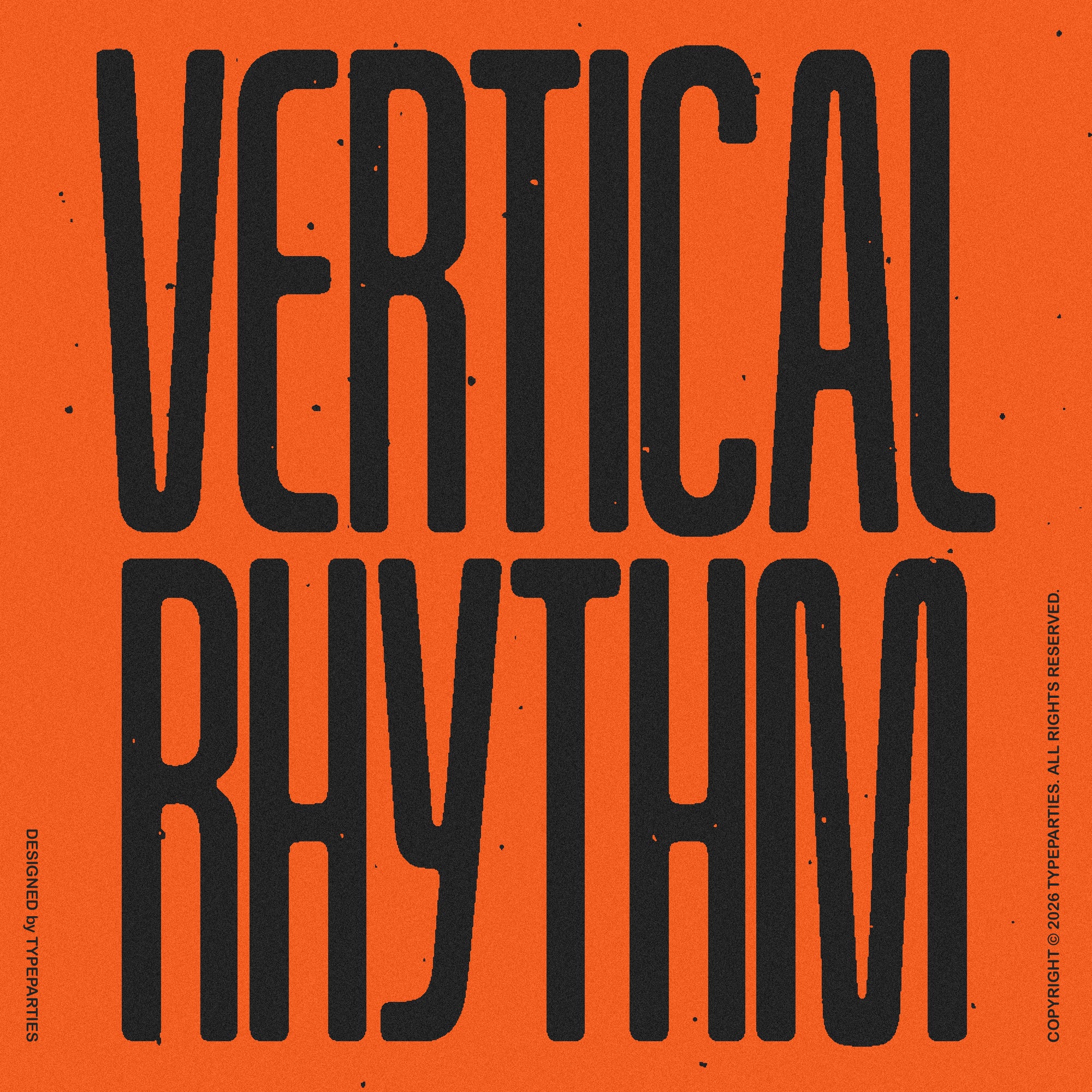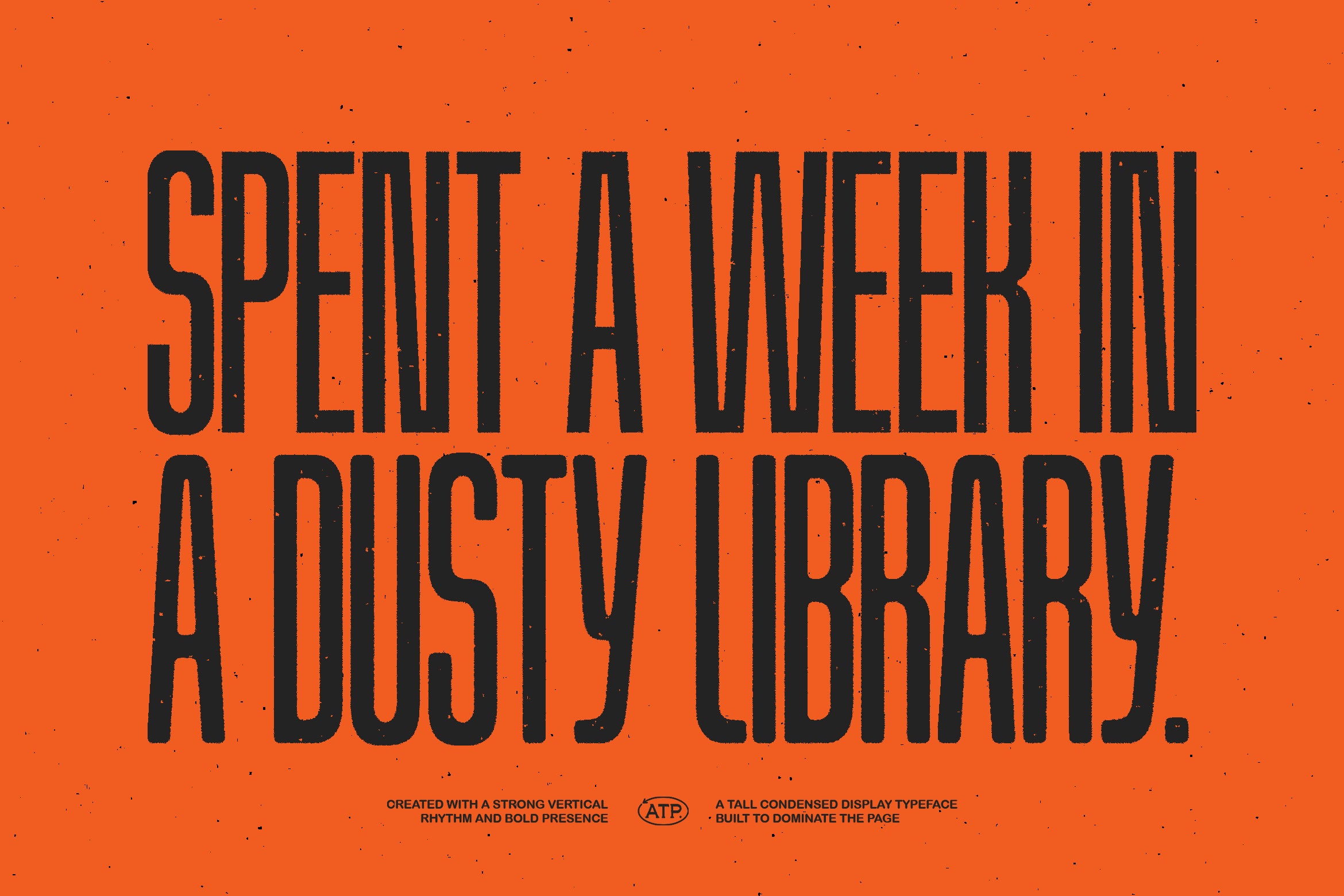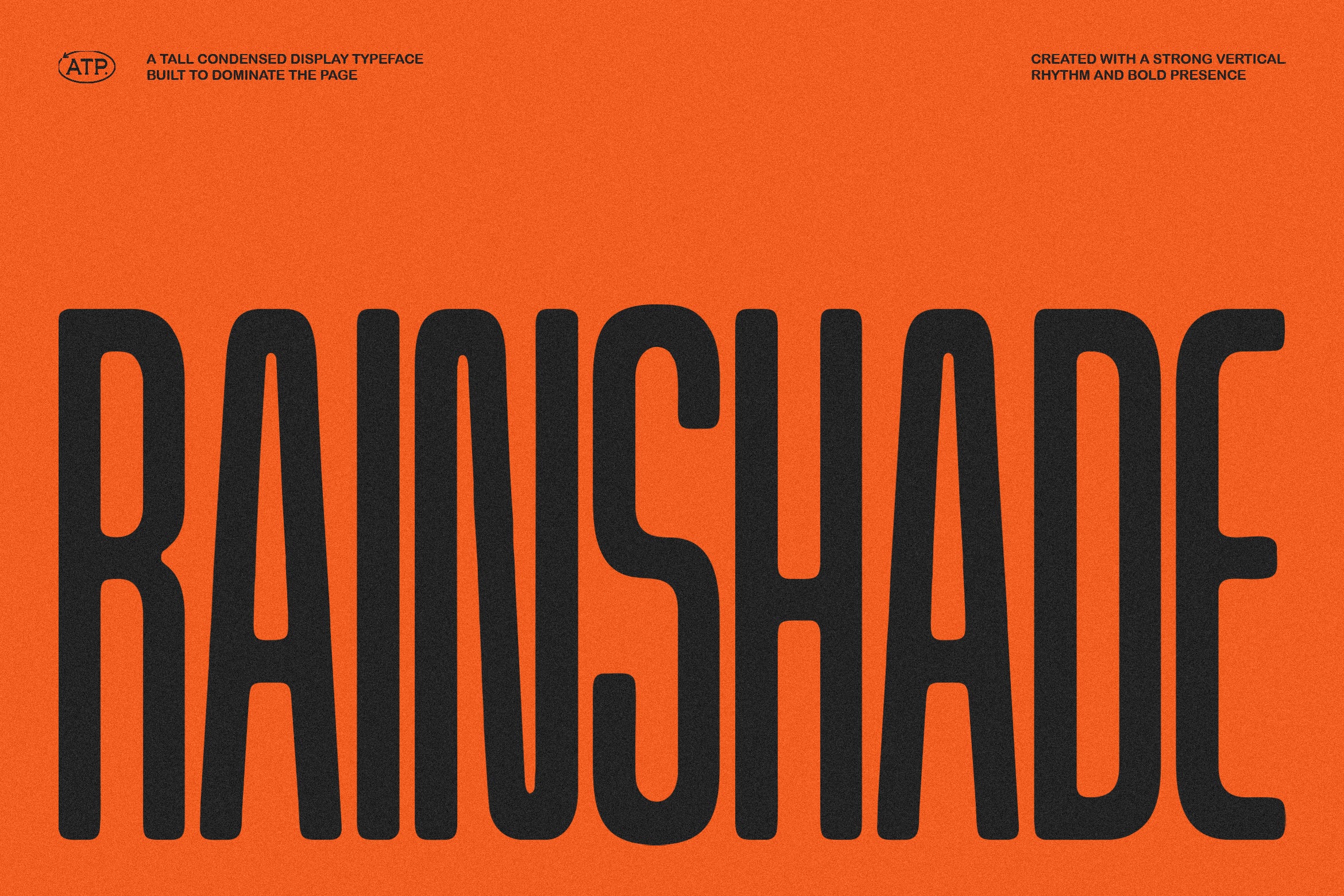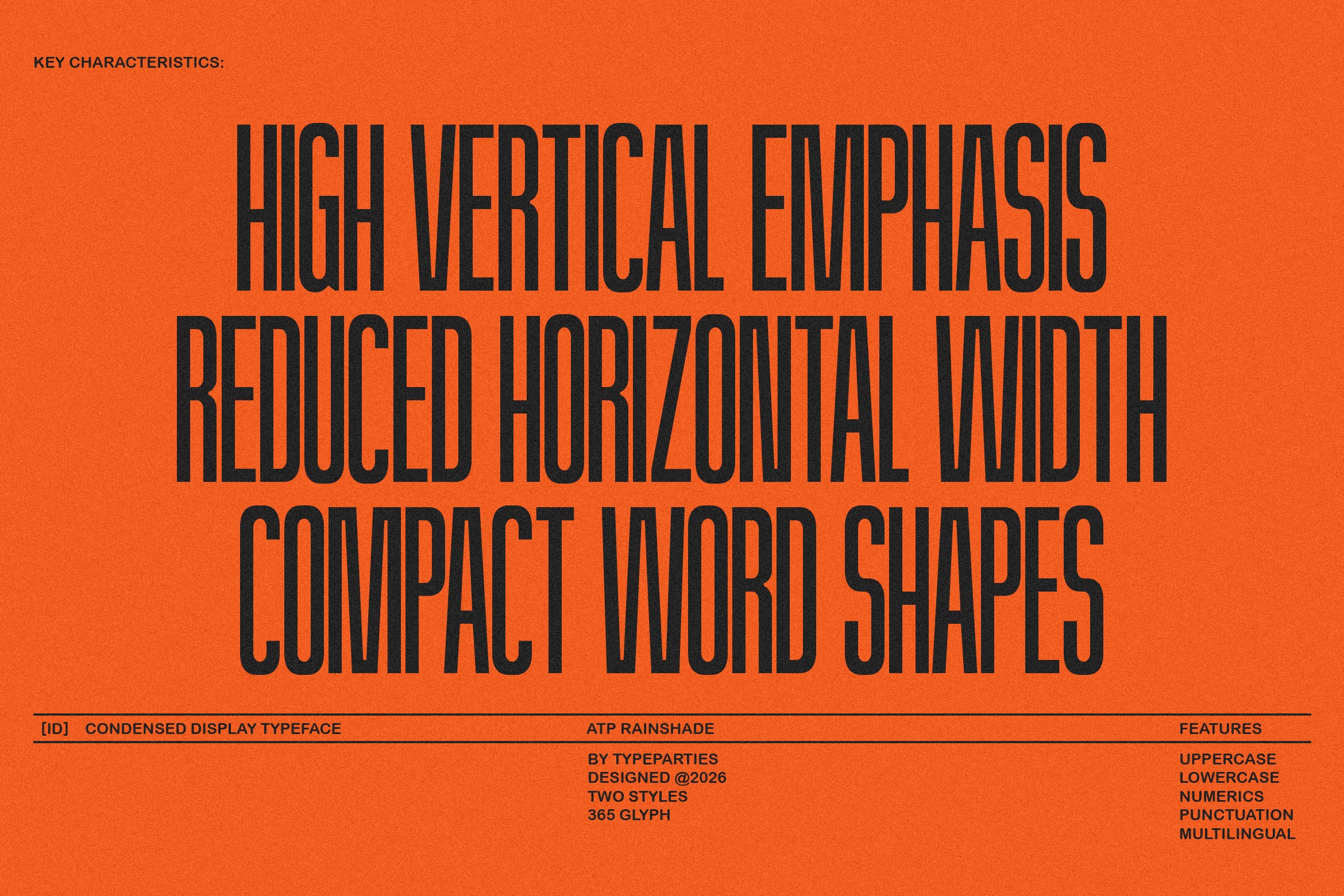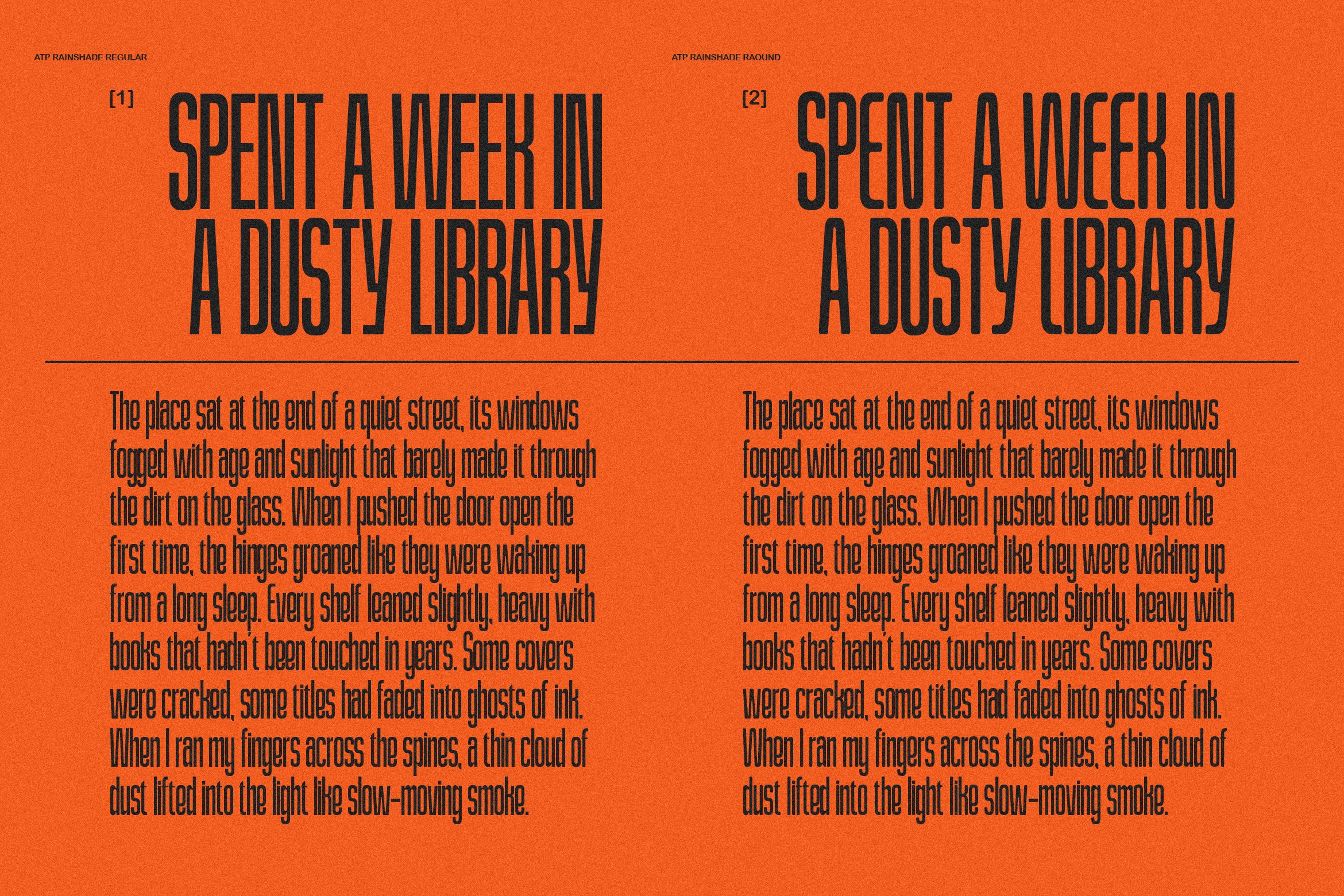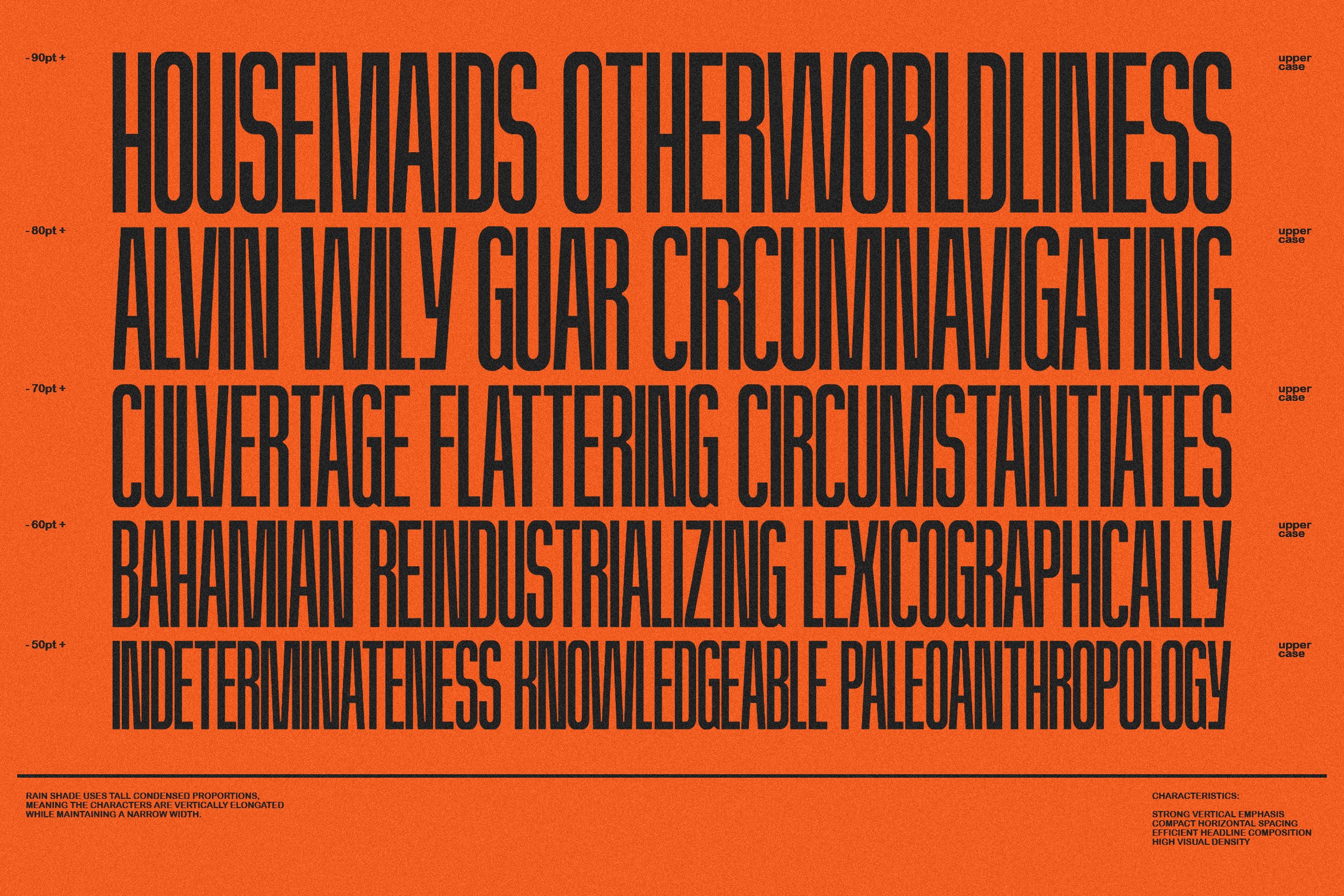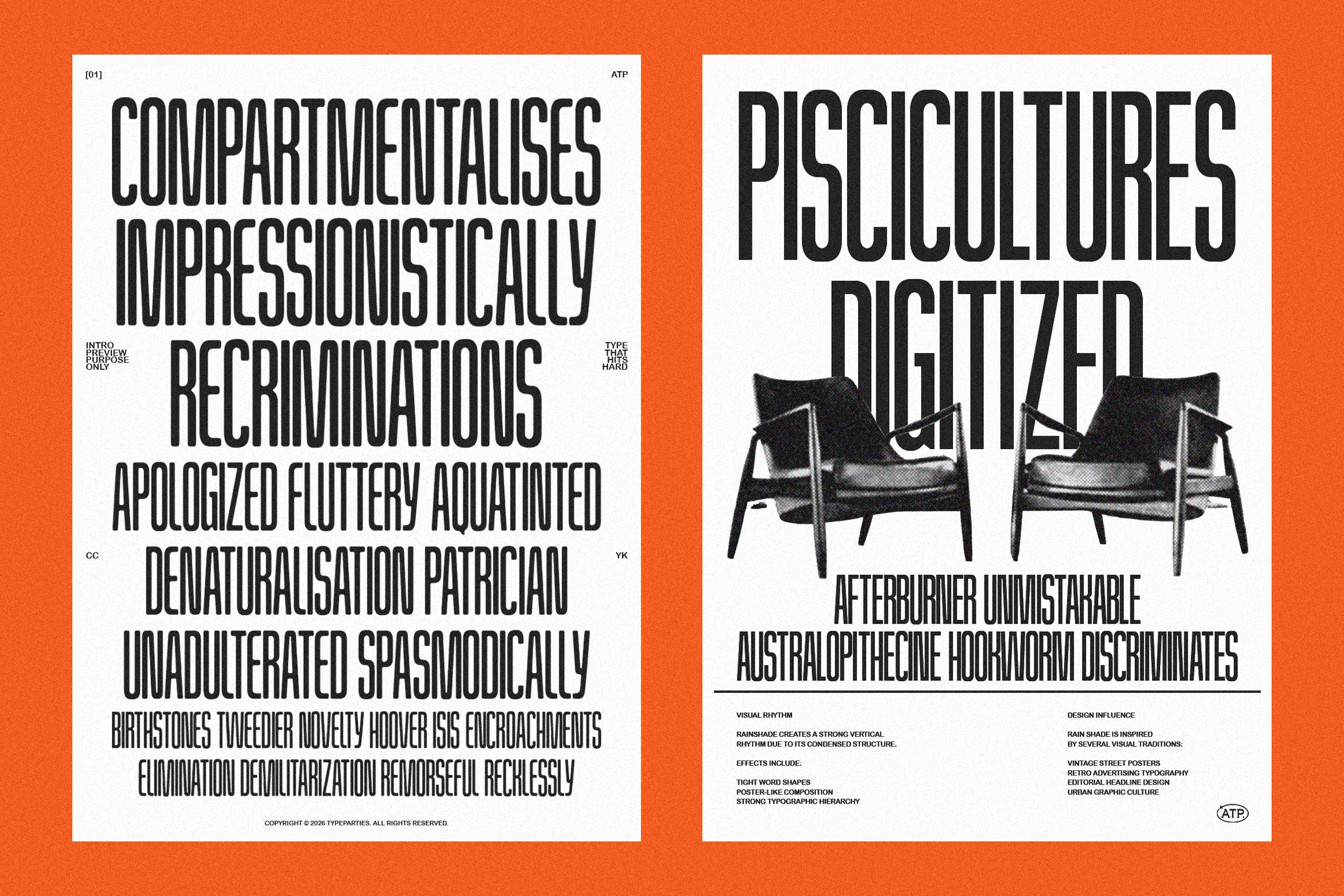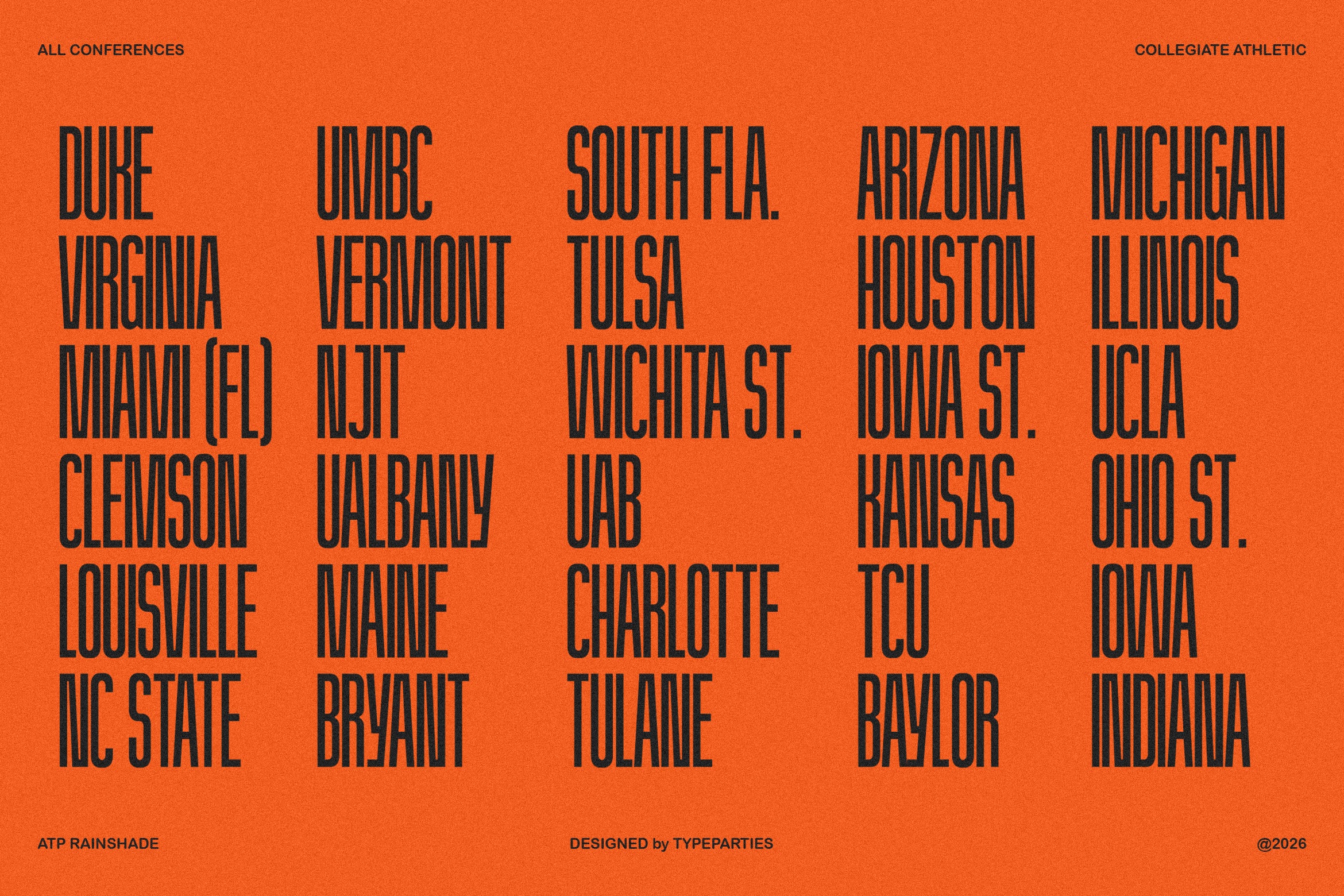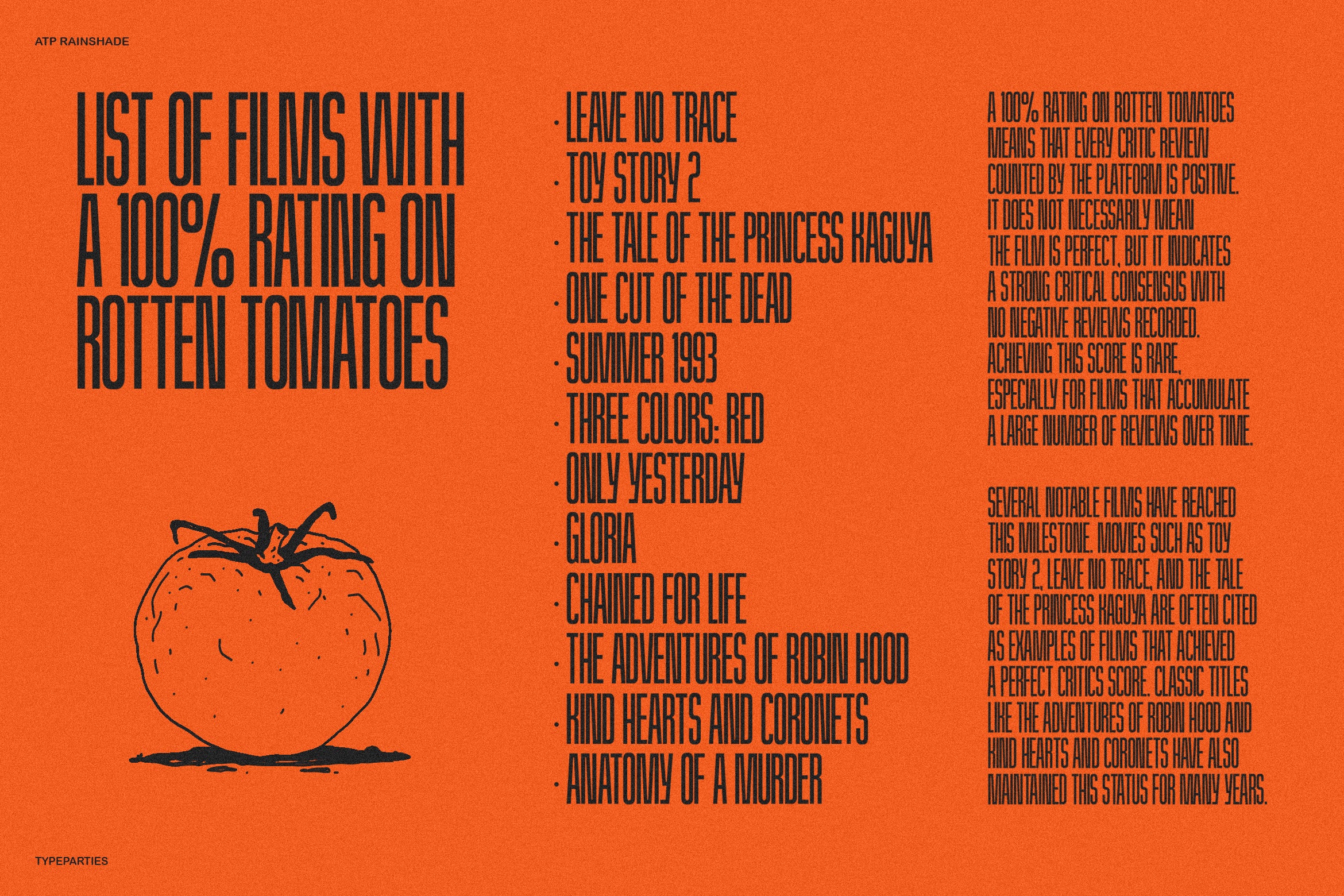
Rainshade - Condensed Display Font
a tall condensed display typeface built to dominate the page. Designed with a strong vertical rhythm and bold presence, this font captures the raw energy of vintage street posters, editorial headlines, and retro advertising typography. Every letter stands tall and confident, creating a visual impact that immediately pulls attention.
Inspired by the spirit of analog print culture, Rain Shade carries subtle irregularities in its strokes that give it a human, organic touch. This slight imperfection adds character and warmth, preventing the type from feeling too mechanical while still maintaining a powerful and structured form. The result is a typeface that feels both nostalgic and contemporary, perfect for designs that want to stand out in a fast-moving visual landscape.
Uppercase
Lowercase
Numerics
Punctuation
Multilingual
Rainshade is a tall condensed display font designed for strong visual impact, featuring uppercase and lowercase letters, numerics, punctuation, and multilingual support. Available in both .otf and .ttf formats, it combines a bold presence with subtle irregularities for a unique, organic touch.